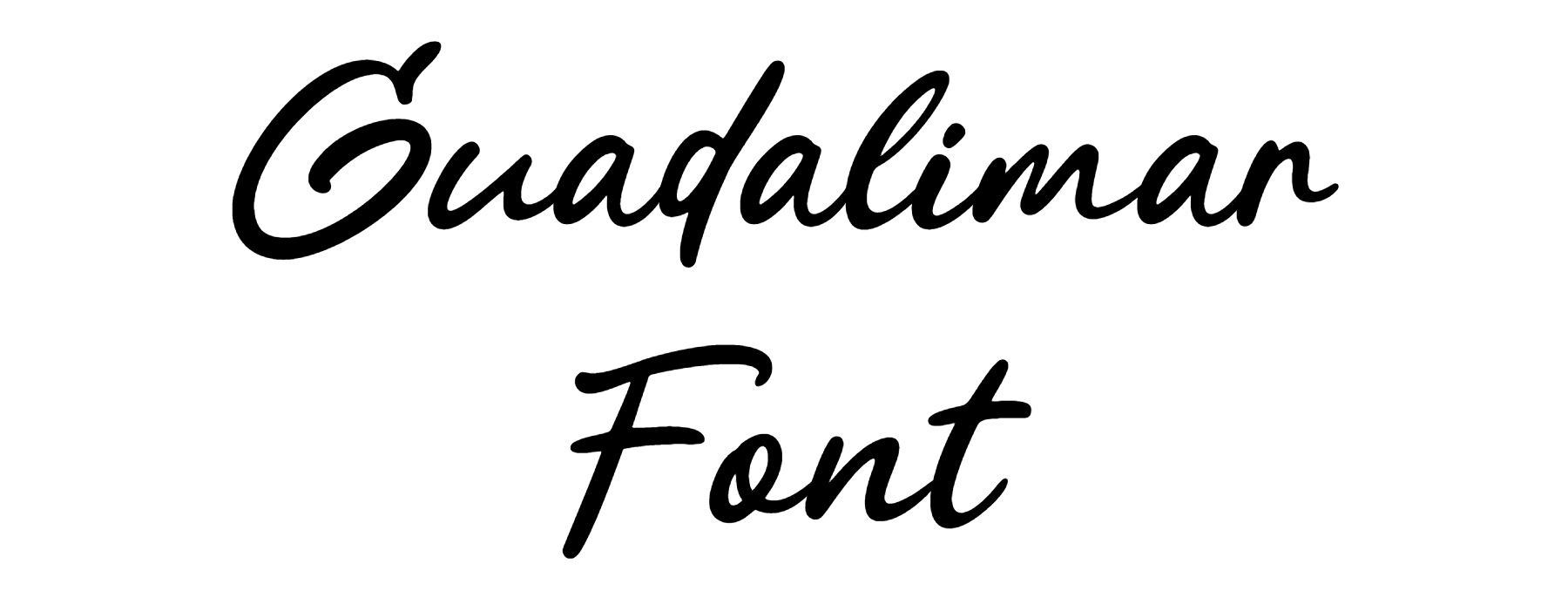
Guadalimar
Guadalimar is a handwritten font designed by Suzuran (2025). It looks like someone actually wrote it by hand: relaxed, friendly and a little imperfect in a good way. You can download it for free and test it with your own words in the preview above.
- Designer: Suzuran
- Glyphs: 105
You get every letter from A to Z in both cases and all the numbers from 0 to 9, which means Guadalimar can handle full sentences, dates and prices. Common punctuation such as &, !, ? and @ is included as well. It doesn't include accented letters such as é or ñ, which makes it an English-only font.
Guadalimar is a natural fit for greeting cards, journal pages and friendly social posts. Set it a bit larger than you would a normal text font. Handwriting styles lose their charm once they get too small to read comfortably.
Who designed Guadalimar font?
Does Guadalimar support accented letters?
No. Guadalimar has no accented letters such as é, ñ or ü, so it's best for English text.